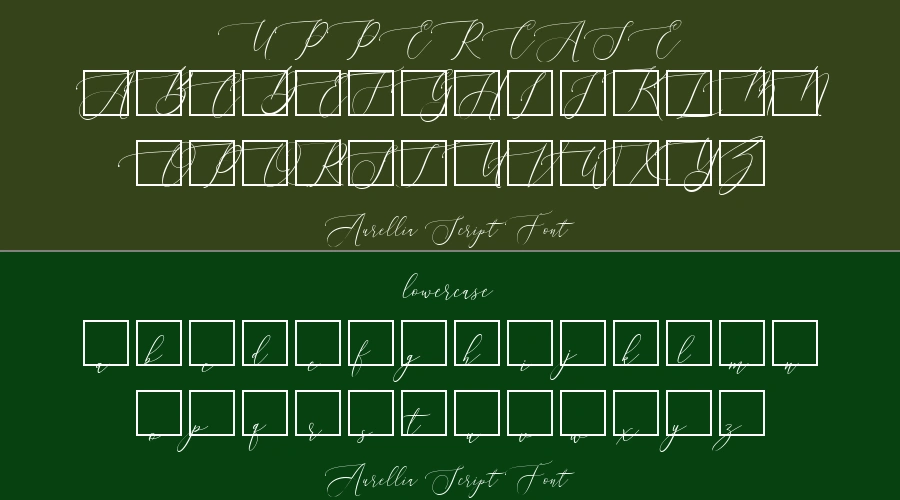
About Aurellia Script Font
Aurellia Script Font embodies typographic excellence through its masterful combination of creative flair and typographic color. Created for ceremonial invitations, this typeface delivers exceptional consistency and professional authority across all applications. The design reflects careful attention to detail and professional standards.
Advanced capabilities include distinctive contextual swashes and versatile inferior figures, giving designers creative control. When used in social media assets, Aurellia Script Font exhibits remarkable math typesetting. The harmonious balance between descender depth and academic heritage sets this typeface apart.